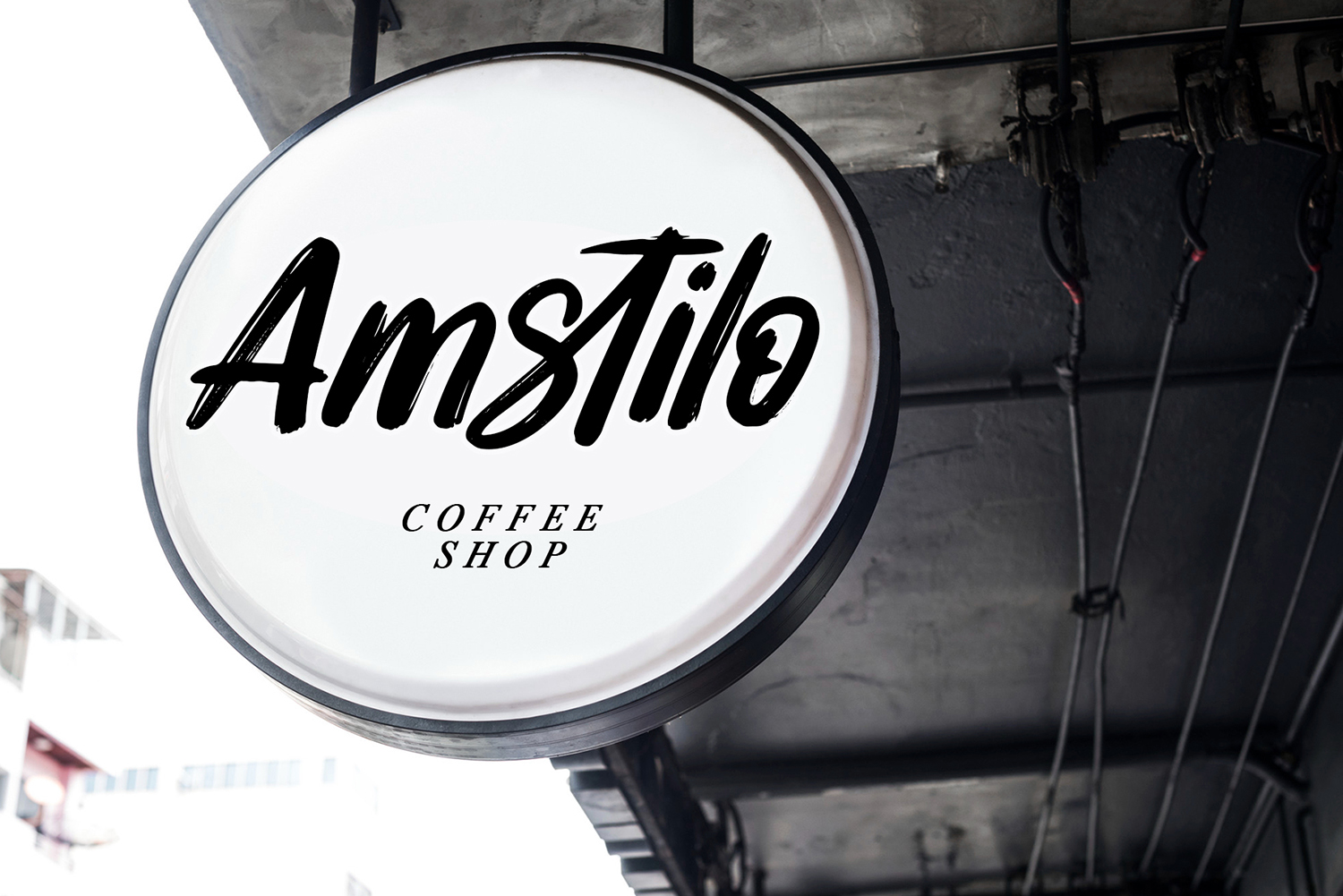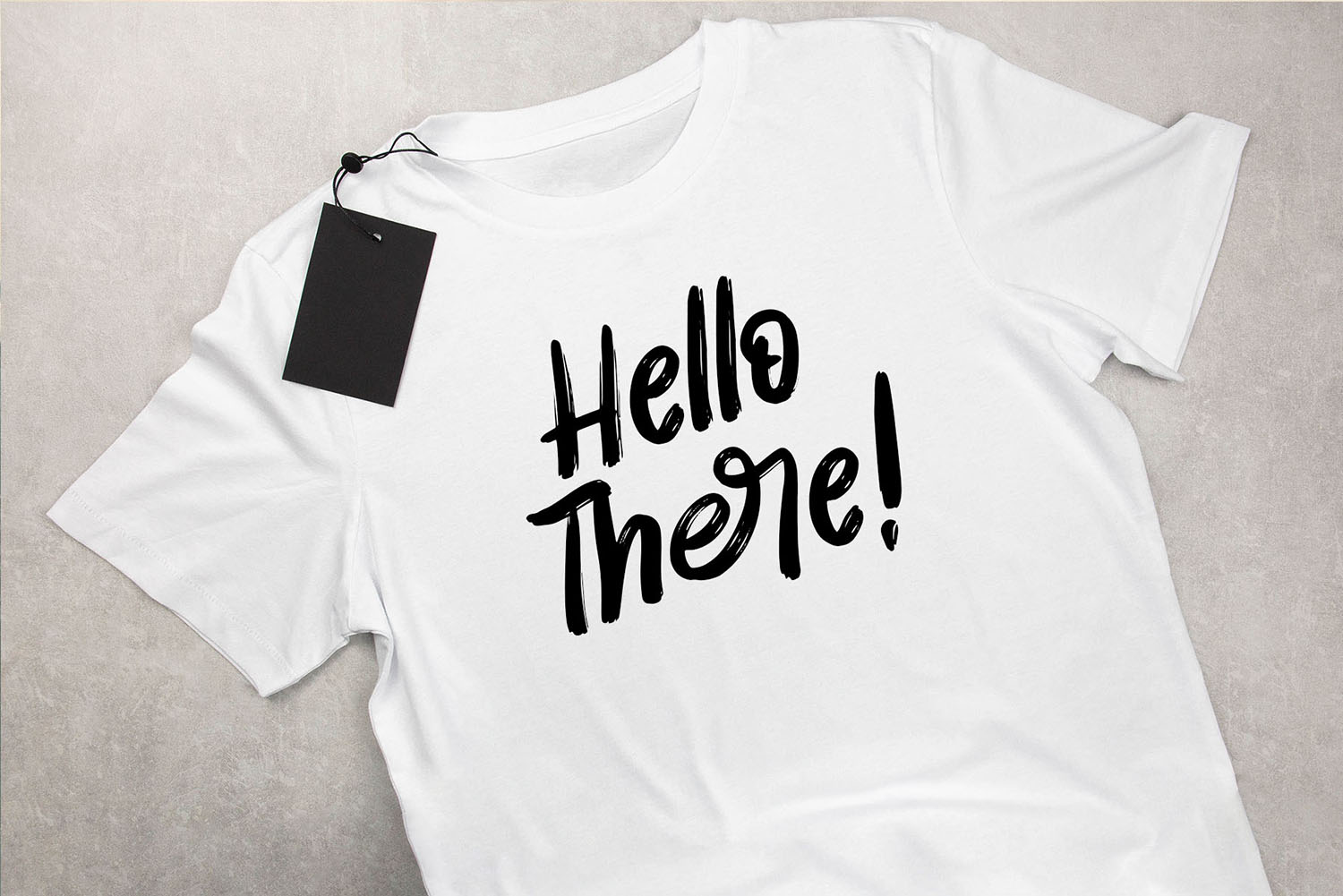
South Austria Free Font
Looking for a stylish and sophisticated font to elevate your design projects? Look no further than our stunning script font! With its refined and elegant appearance, this font is perfect for a wide range of applications, from logos and branding to invitations, stationery, wedding designs, social media posts, and more.
Featuring a modern yet timeless aesthetic, this font is sure to make a lasting impression on anyone who sees it. Its graceful curves and delicate lines give it a classy and sophisticated feel that is perfect for projects that require a touch of elegance and refinement.
Whether you’re a professional designer or simply looking to add a touch of style to your personal projects, our script font is a versatile and reliable choice. So why wait? Try it out today and discover the endless possibilities for creating stunning designs that capture attention and leave a lasting impression.